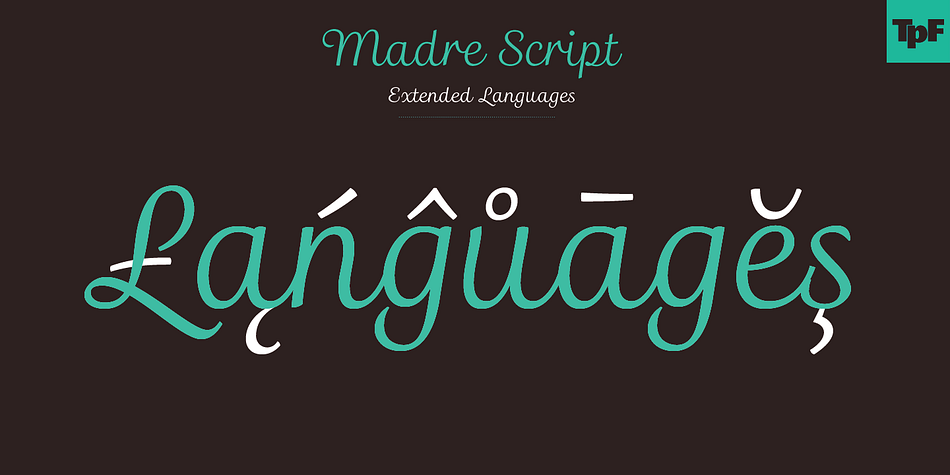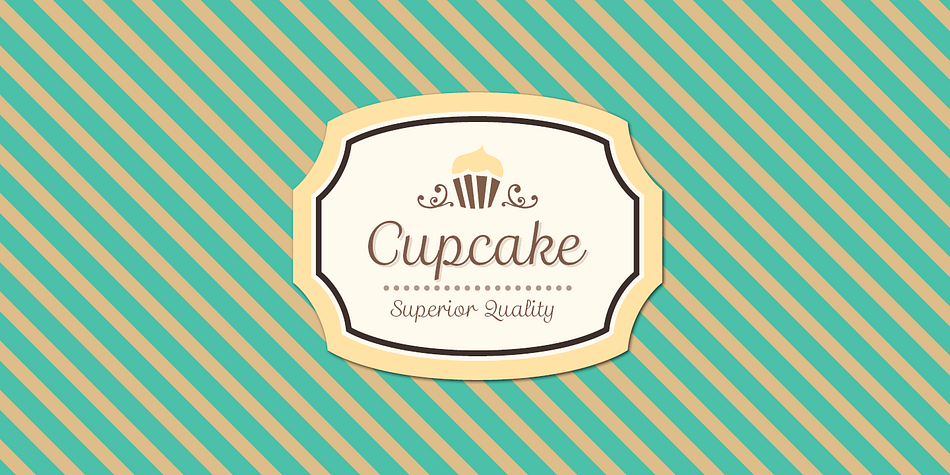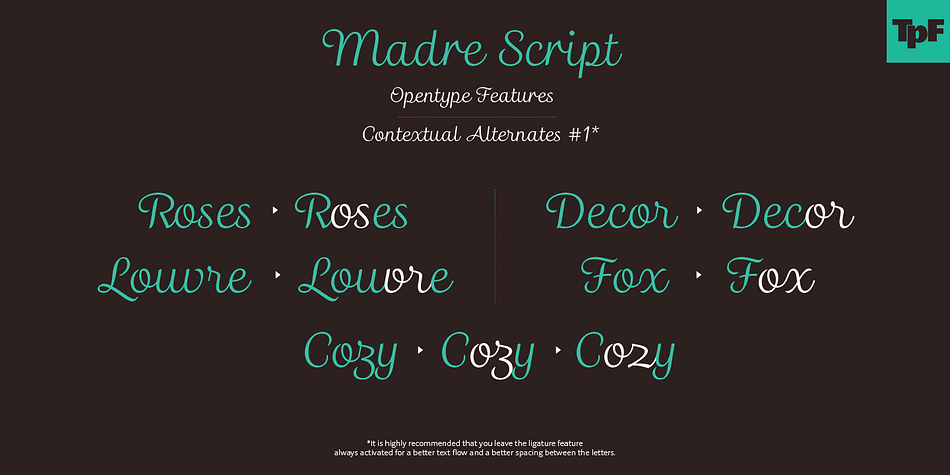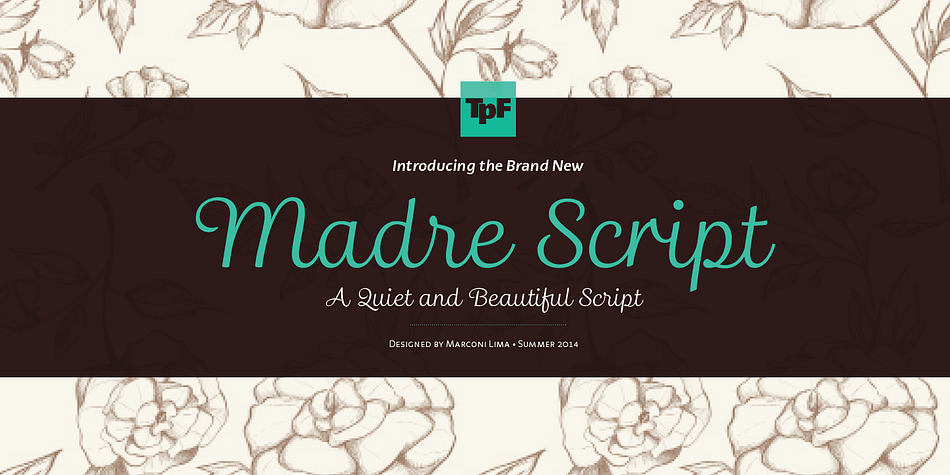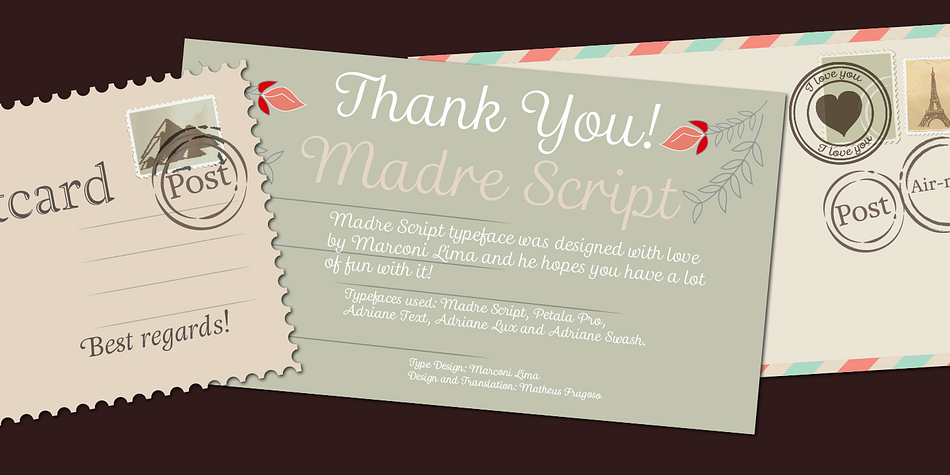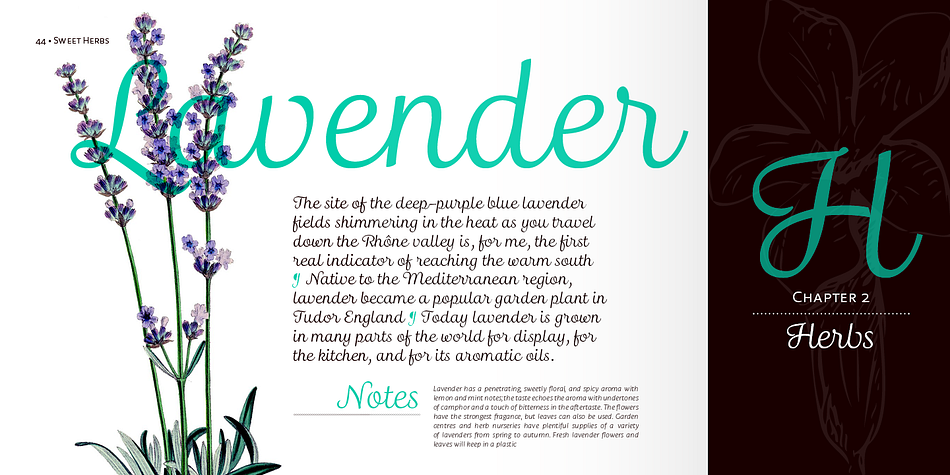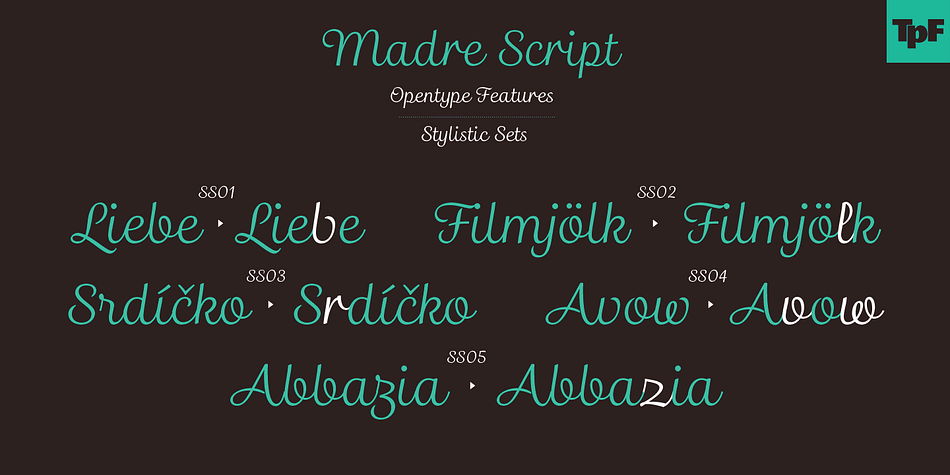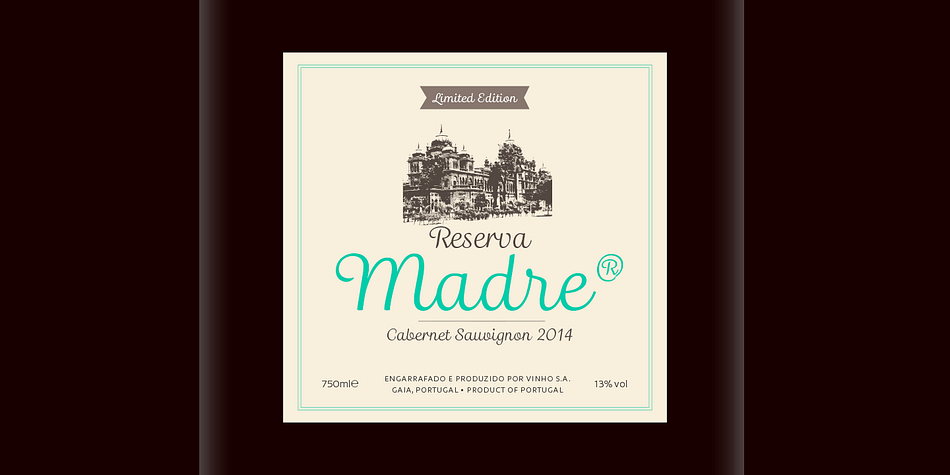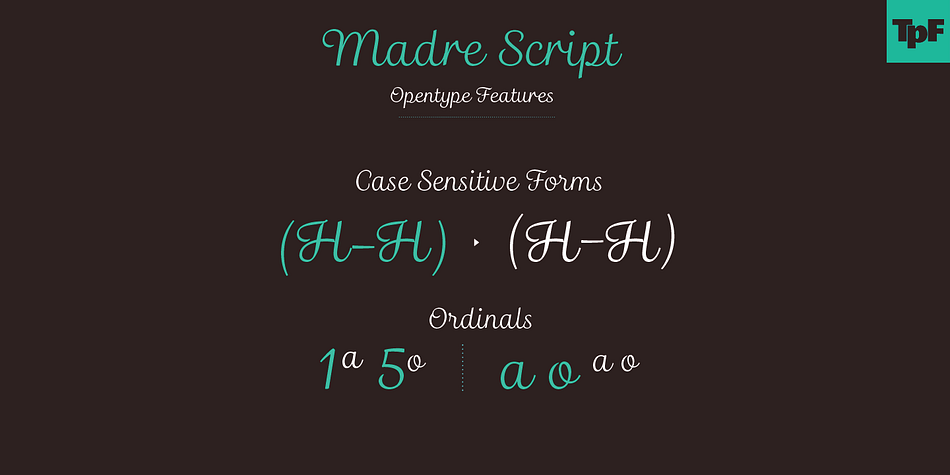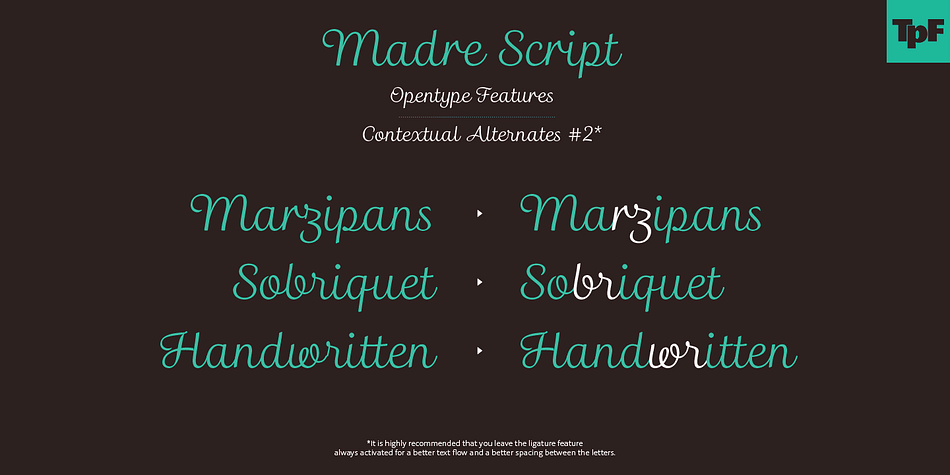
Madre Script is a script font published by Typefolio Digital Foundry.
Madre Script is a typeface that experiences adopting two building models: the typographic (with repetition of shapes) and the script (with the freedom of writing).
The models are presented in a subtle, unobtrusive way and mainly without conflicts. The essence of each personality is present, coexisting harmoniously and enjoying the same stylistic space.
After careful evaluation of the connections between characters, intelligent standards have been established for use of the ‘Contextual Alternates - calt’ OpenType feature, that used together with the ‘Ligatures - liga’ feature, offers a gentle and friendly pace.
Madre, is therefore, a discreet, near silent ‘scriptypography’ typeface. It is the ideal choice for editorial, packaging and branding.